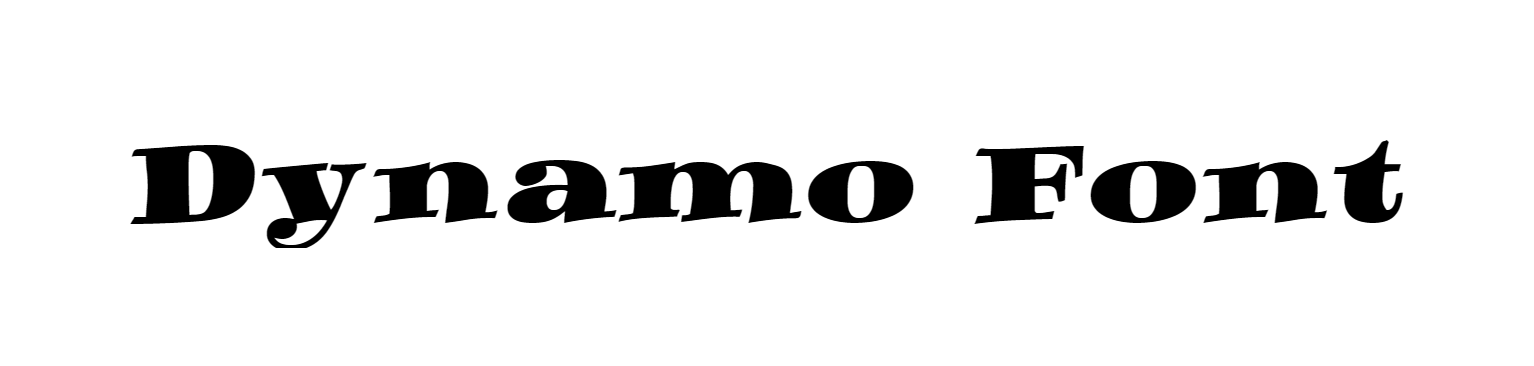
Dynamo
Dynamo is a fancy font. It's a decorative display font with plenty of personality, made to grab attention. It's a free download, and you can try it with your own text in the preview above first.
- Width: Semi-expanded
- Glyphs: 245
- Extra characters: 24 copy-and-paste alternates (Private Use Area)
You get every letter from A to Z in both cases and all the numbers from 0 to 9, which means Dynamo can handle full sentences, dates and prices. Everyday marks like &, !, ? and @ are there too. Thanks to its accented letters, it also works for Spanish, French, German, Portuguese and Italian, not just English.
Dynamo is a natural fit for posters, logos and eye-catching headlines. The letters are wide, so it looks best with short words and plenty of horizontal space. Use it for one standout word or headline and let simpler fonts handle the rest.
Yes. Dynamo includes the accented letters needed for Spanish, French, German, Portuguese and Italian, so it works for more than just English.